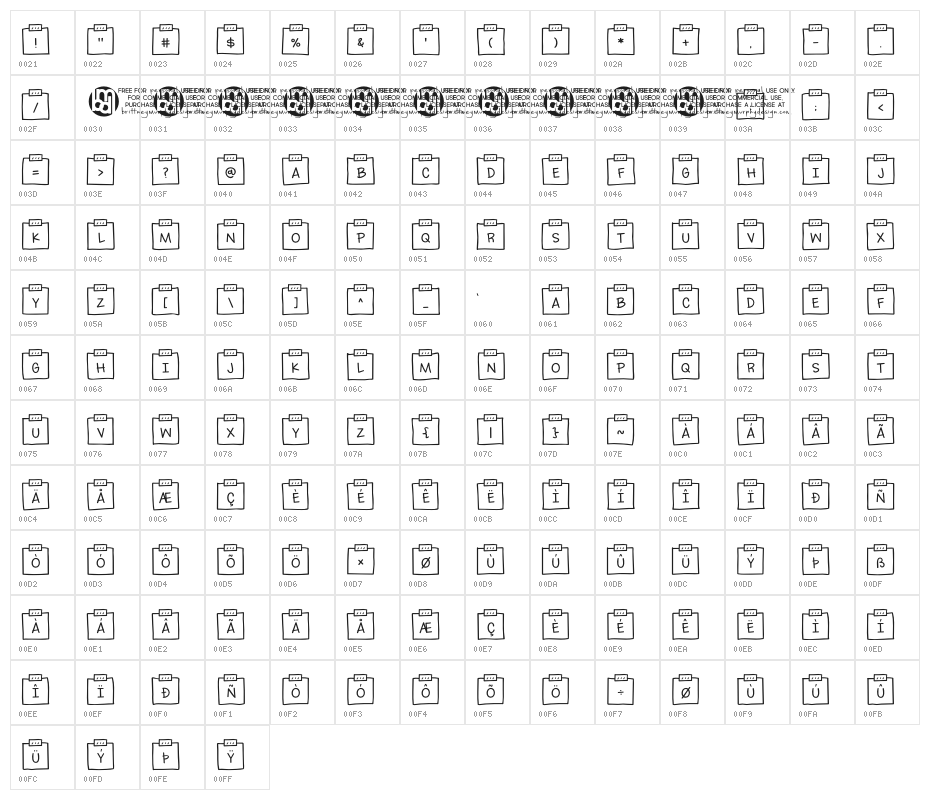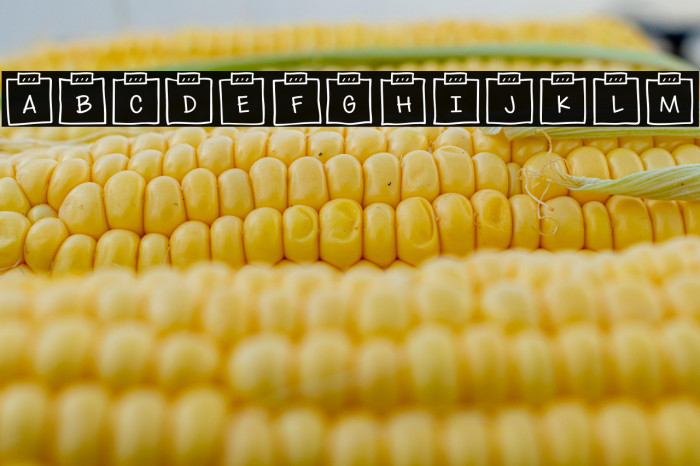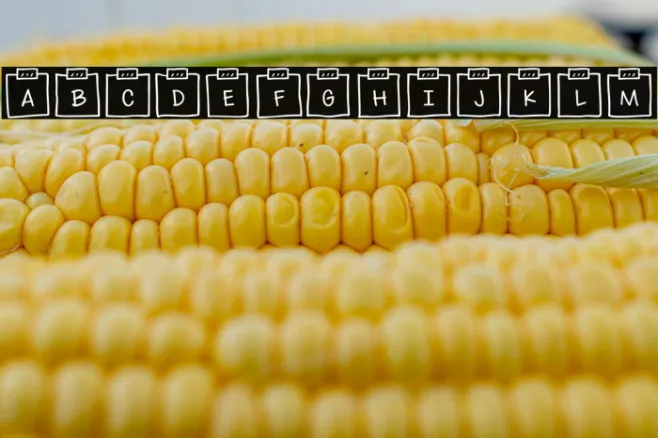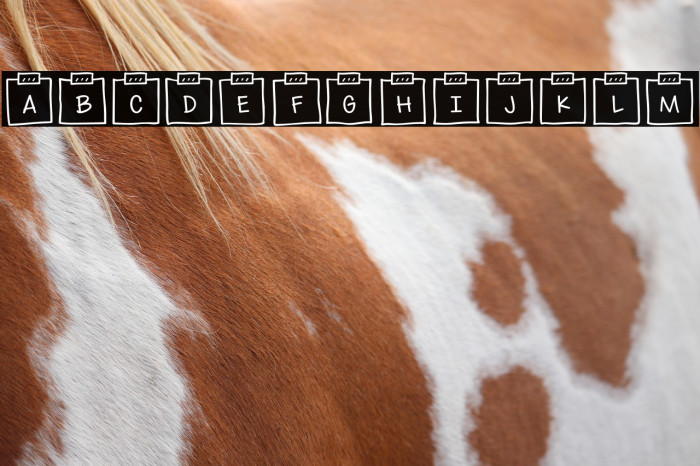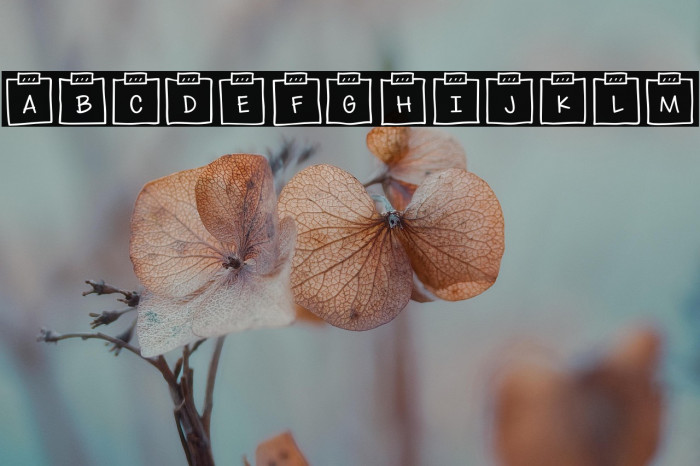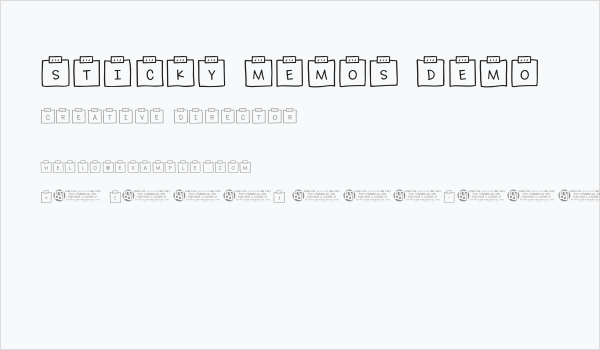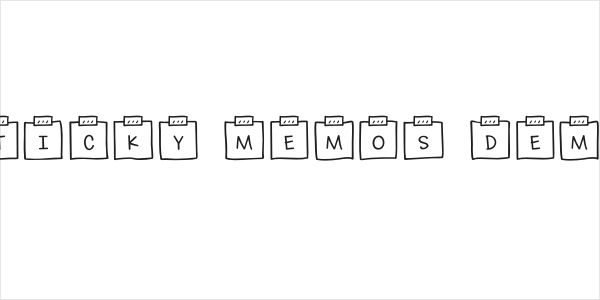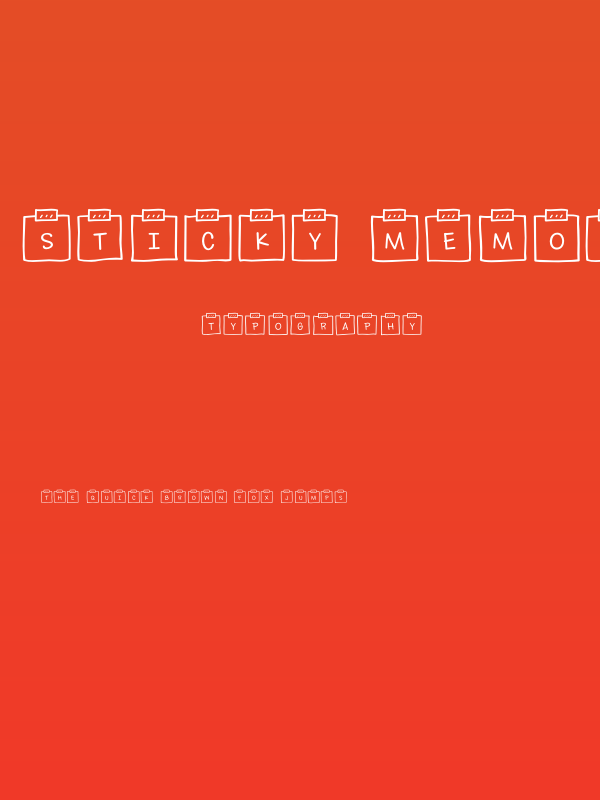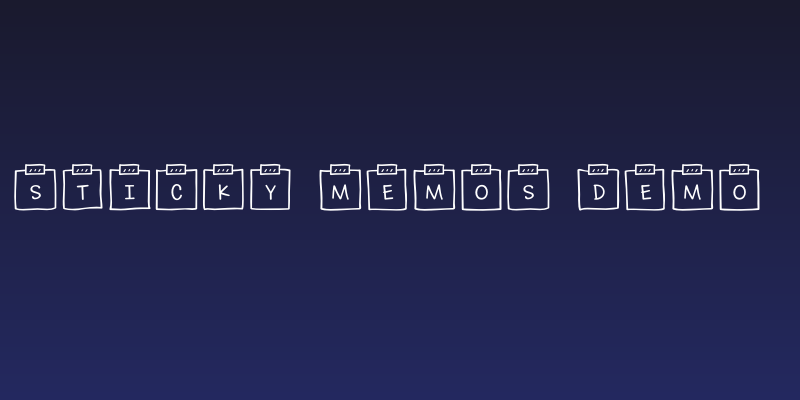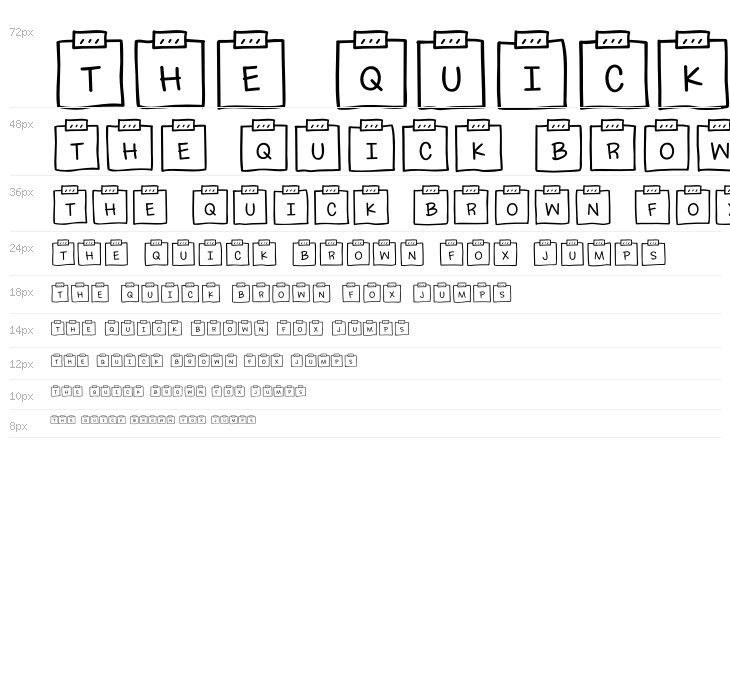
Sticky Memos Demo Font
Sticky Memos Demo Description
This playful and whimsical font features characters that appear as if they are written on sticky notes, each with a small tab at the top. The letters are uppercase and lowercase, with a hand-drawn, casual style that gives a sense of fun and creativity. The lines are slightly irregular, adding to the informal and approachable feel. The font includes numbers and a variety of special characters, all maintaining the same sticky note theme. This unique design is perfect for projects that require a touch of humor and personality.
| Overall Style | Whimsical |
| Proposed Projects | Ideal for children's books, educational materials, creative posters, and informal invitations. |